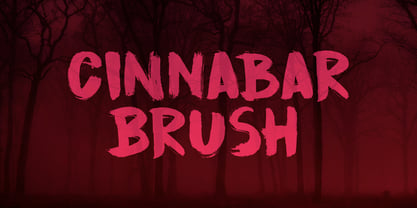
Cinnabar Brush
by Hanoded
About Cinnabar Brush Font Family
Cinnabar Brush is a font named after a mineral - mercury sulfide to be precise. I quite like the name and the color, so naming a font after it made sense. Cinnabar Brush is a very bold, very outspoken brush font. It is all caps, but upper and lower case glyphs differ and can be mixed. It is a bit on the heavy side, so I wouldn't set a text in it. Use Cinnabar Brush for posters, book covers, T-shirts and the like. Comes with a mother lode of diacritics.
About Hanoded
Hanoded is a type foundry based in The Netherlands and run by David Kerkhoff. After finishing his journalism studies, David traveled extensively and ended up in Israel where he stayed for some years. David had a lot of jobs – zookeeper, goldsmith, artist and cook (to name a few), but settled on working as a tour guide and photographer. David specializes in hand printed typefaces and uses brushes, pens, ink and paint to create his – sometimes scary looking – fonts. He lives in a wee hamlet near the Rhine river, with his wife, three kids, a handful of extremely spoiled chickens and two guinea pigs called Cookie and Chippie.The Premium foundry page can be viewed https://www.myfonts.com/a/font/premium-font-collections/hanoded